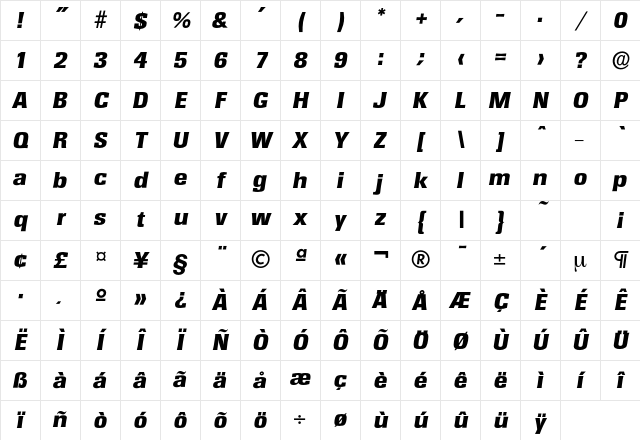
Rochester-ExtraBoldIta Regular
Complete Rochester-ExtraBoldIta Regular glyph index. Displaying only characters natively supported by Rochester-ExtraBoldIta Regular font.
Design Context for Rochester-ExtraBoldIta
Rochester-ExtraBoldIta is a composed and adaptable typeface that performs quietly and consistently across a wide range of design contexts. Its bold stroke weight gives it real presence on the page.